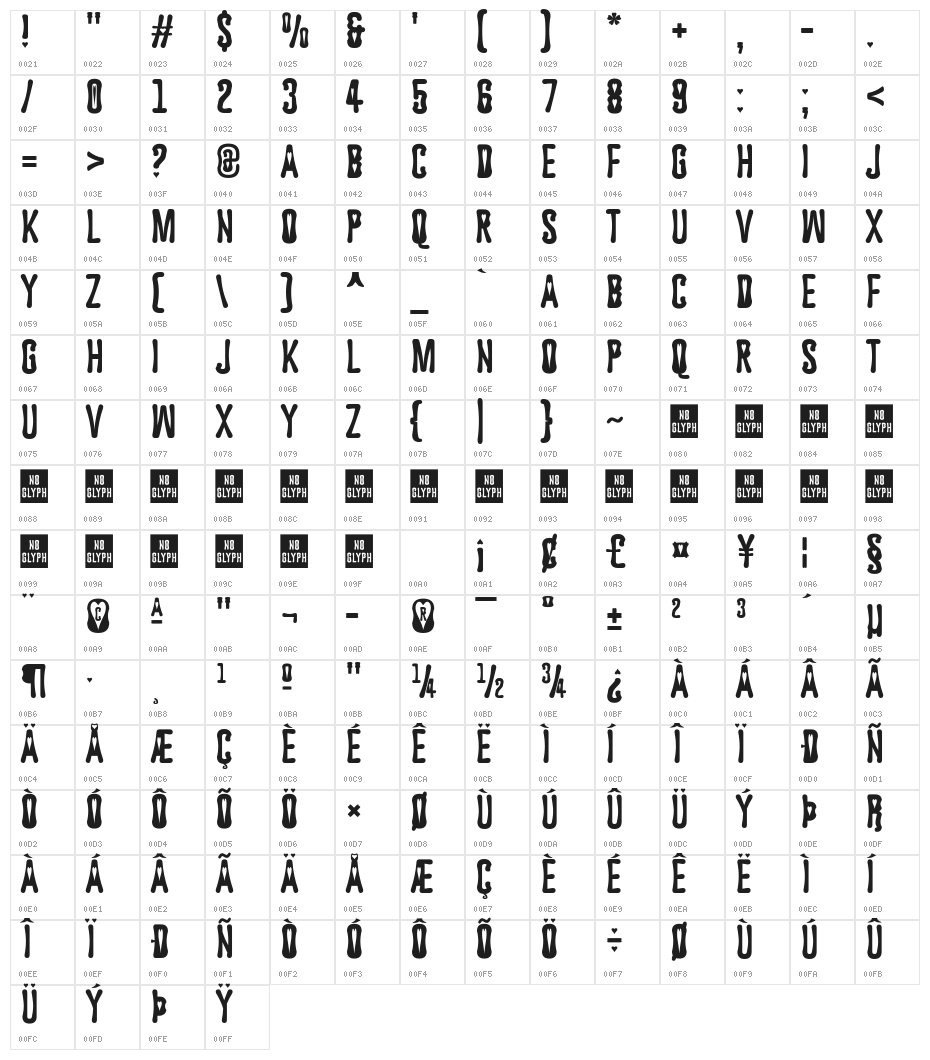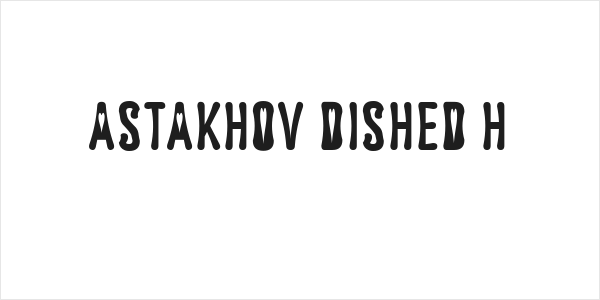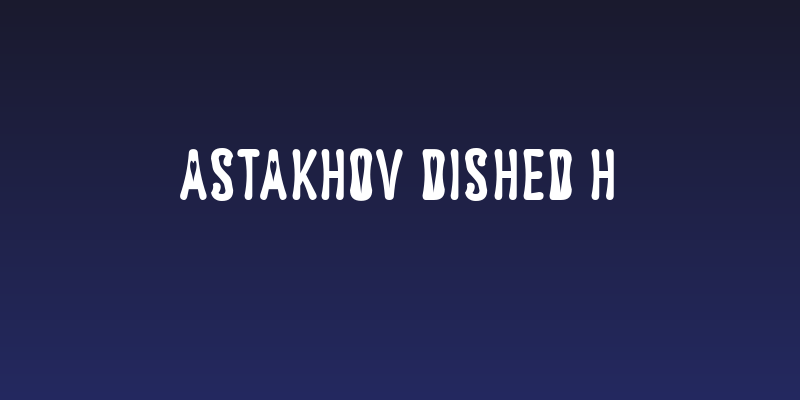
Astakhov Dished H Font
Astakhov Dished H Description
This font features a bold and playful design with a unique, hand-drawn aesthetic. Each character is crafted with a whimsical touch, incorporating irregular shapes and varying stroke widths that give it a lively and dynamic appearance. The uppercase and lowercase letters maintain a consistent style, with exaggerated curves and a slightly condensed form. Numbers and special characters follow the same playful theme, making them stand out with their distinctive forms. The overall look is reminiscent of a vintage or retro style, yet with a modern twist, making it versatile for various creative applications.
| Overall Style | Playful, Vintage |
| Proposed Projects | Ideal for creative projects such as posters, children's books, greeting cards, and branding materials that require a fun and engaging look. |